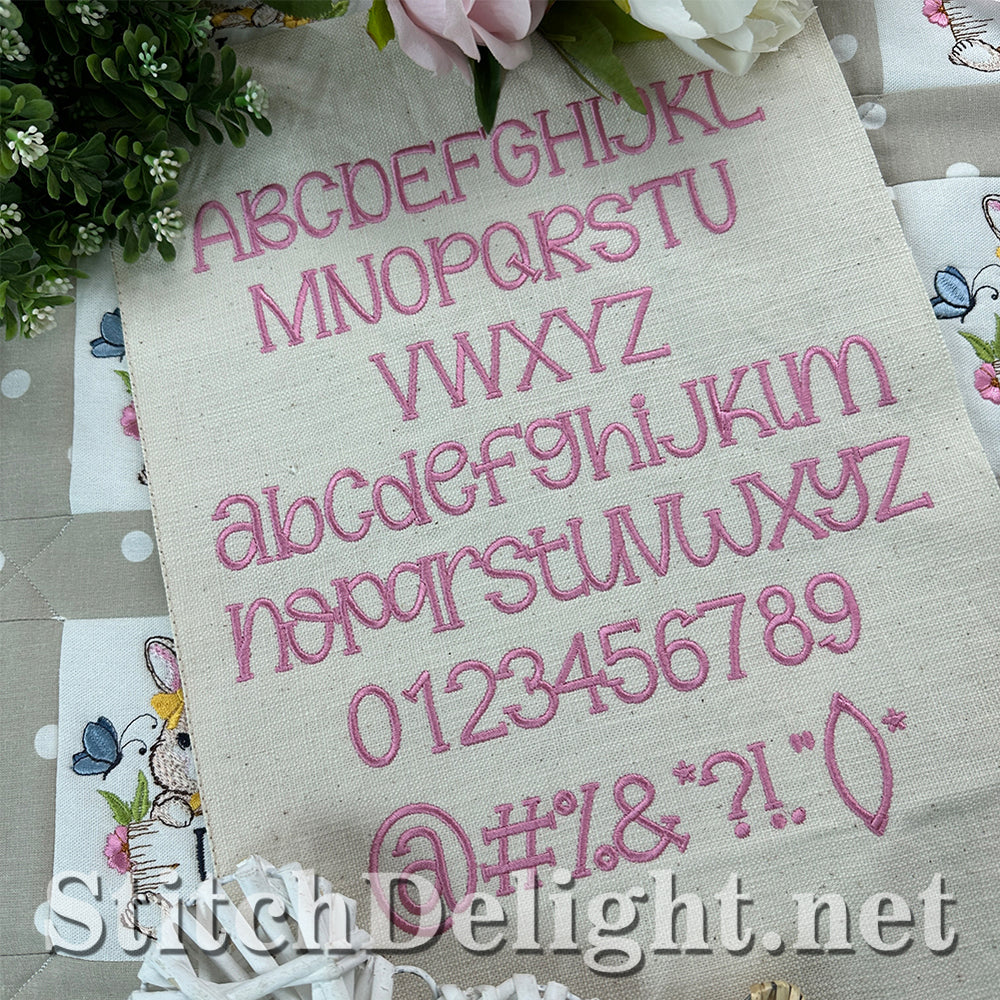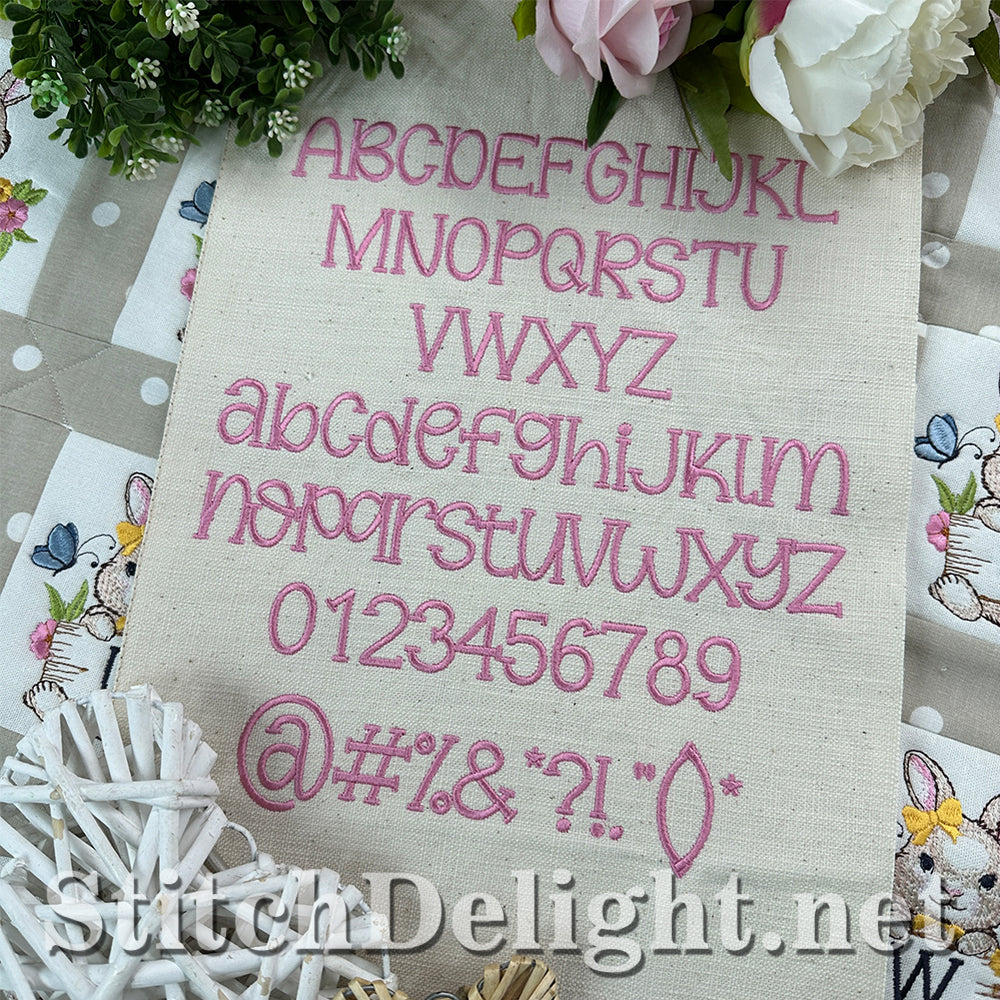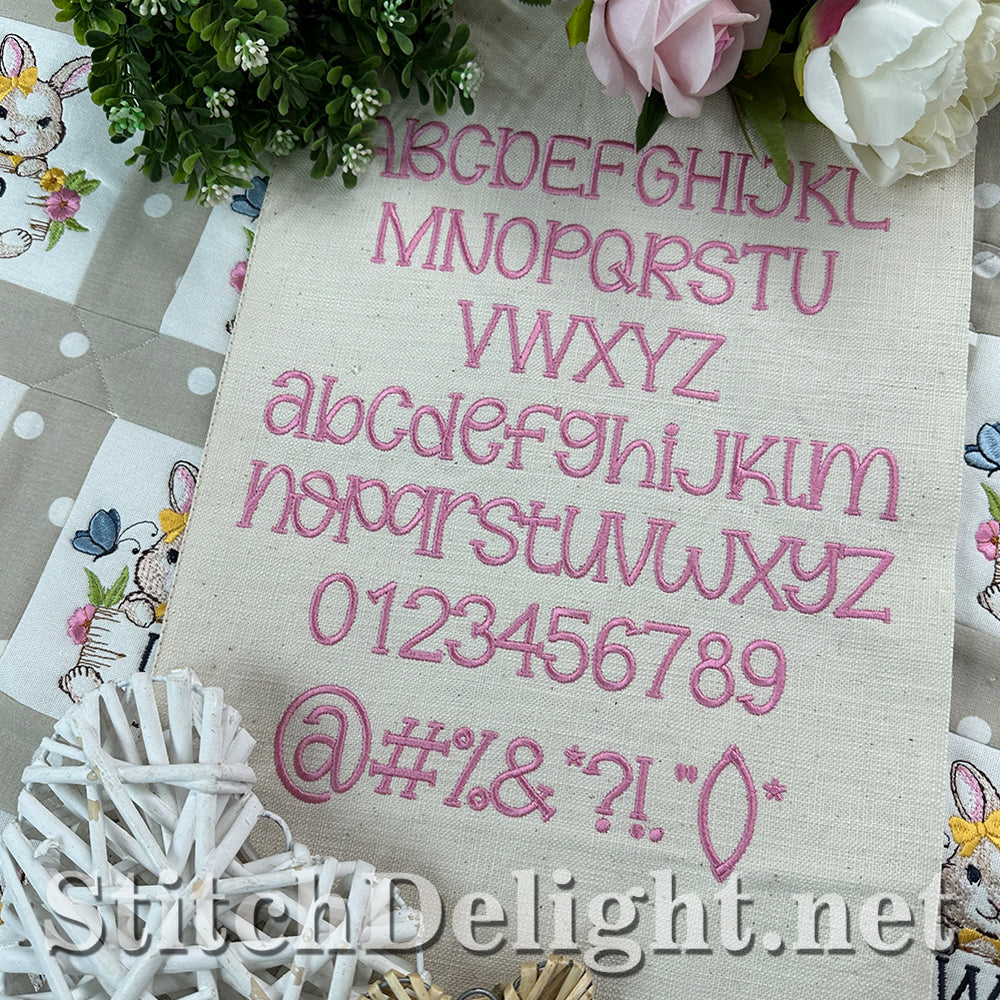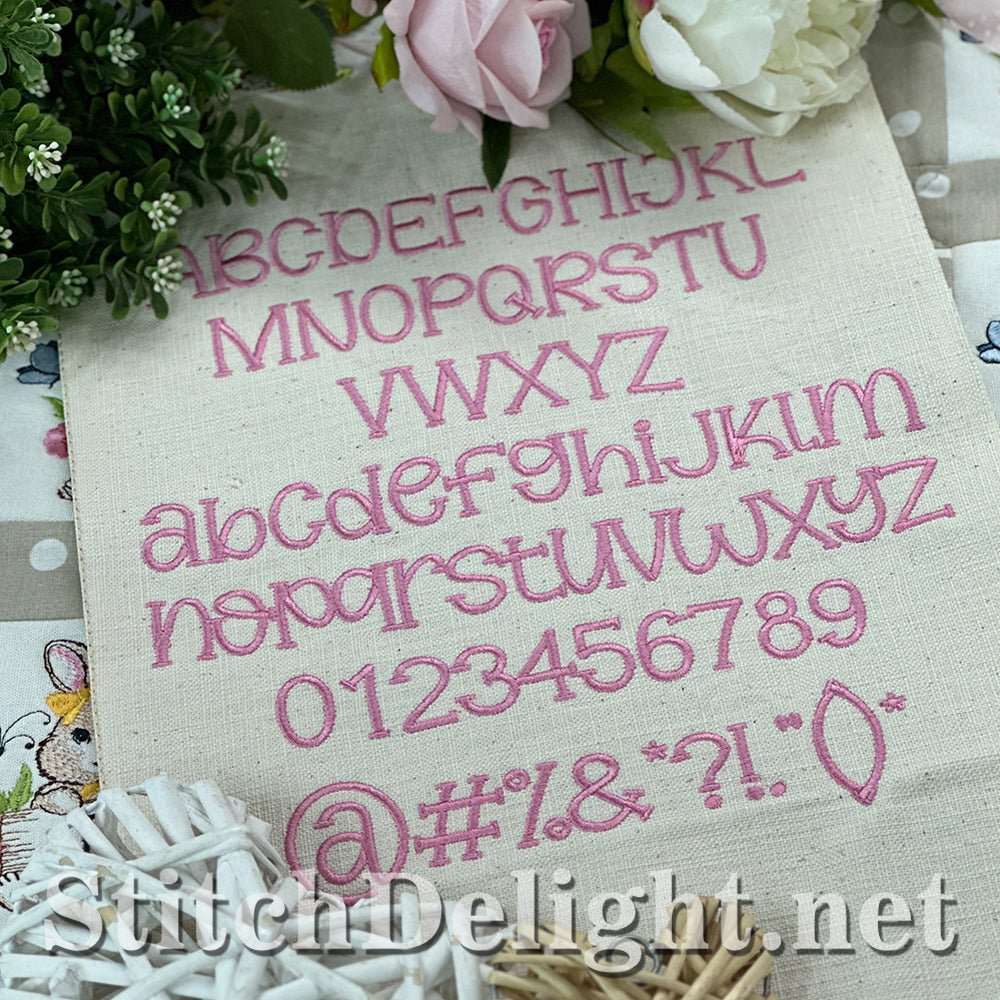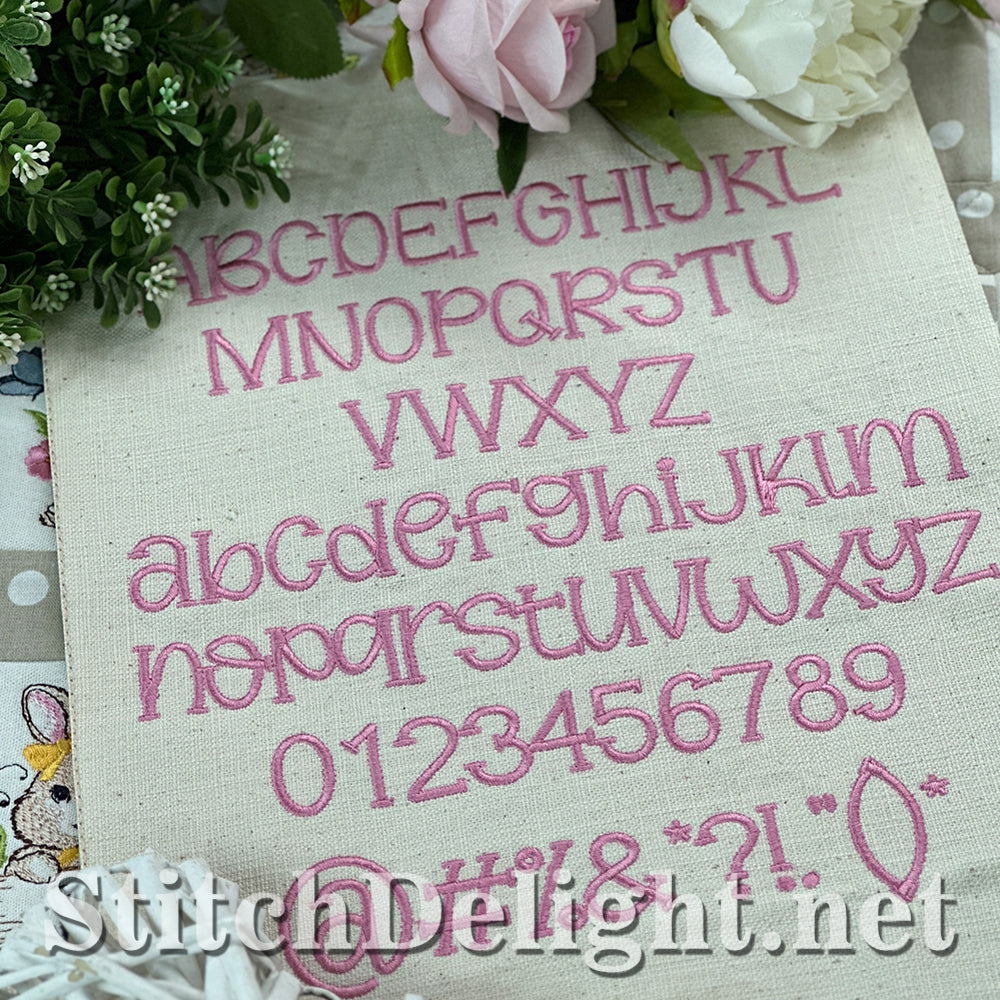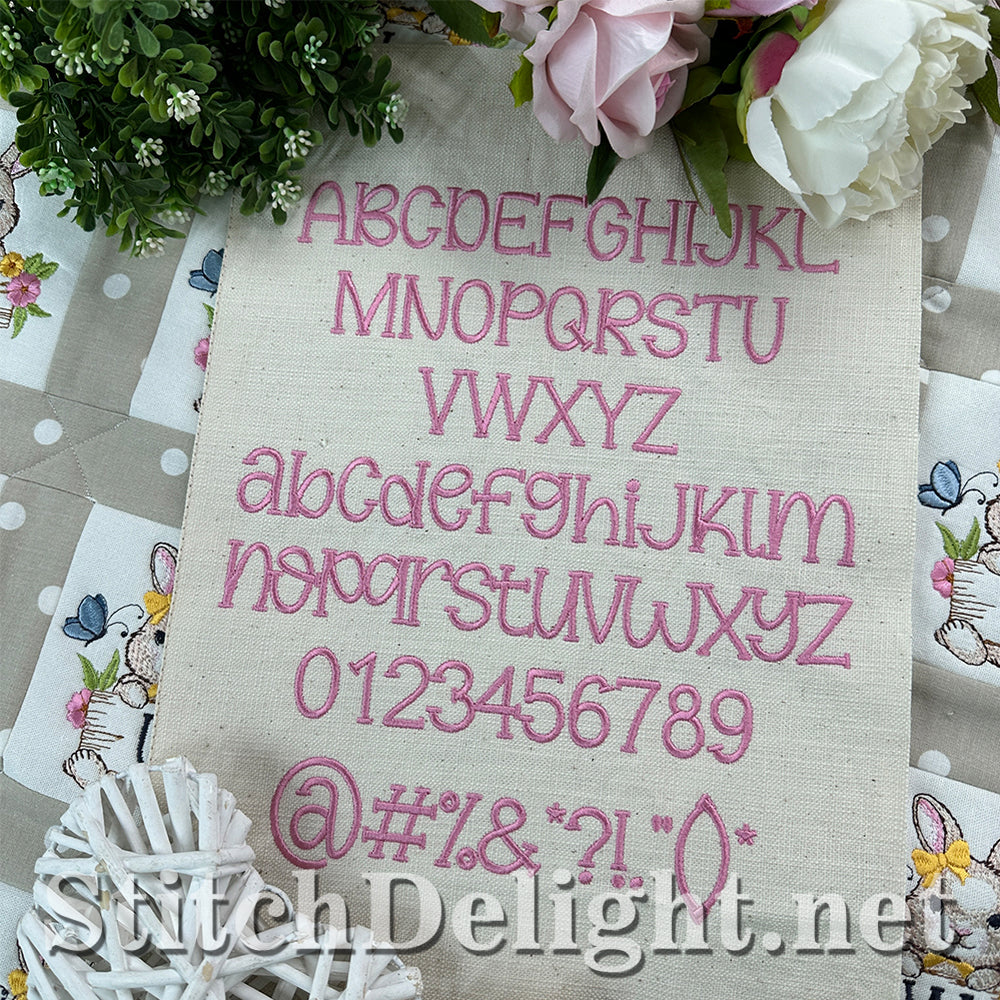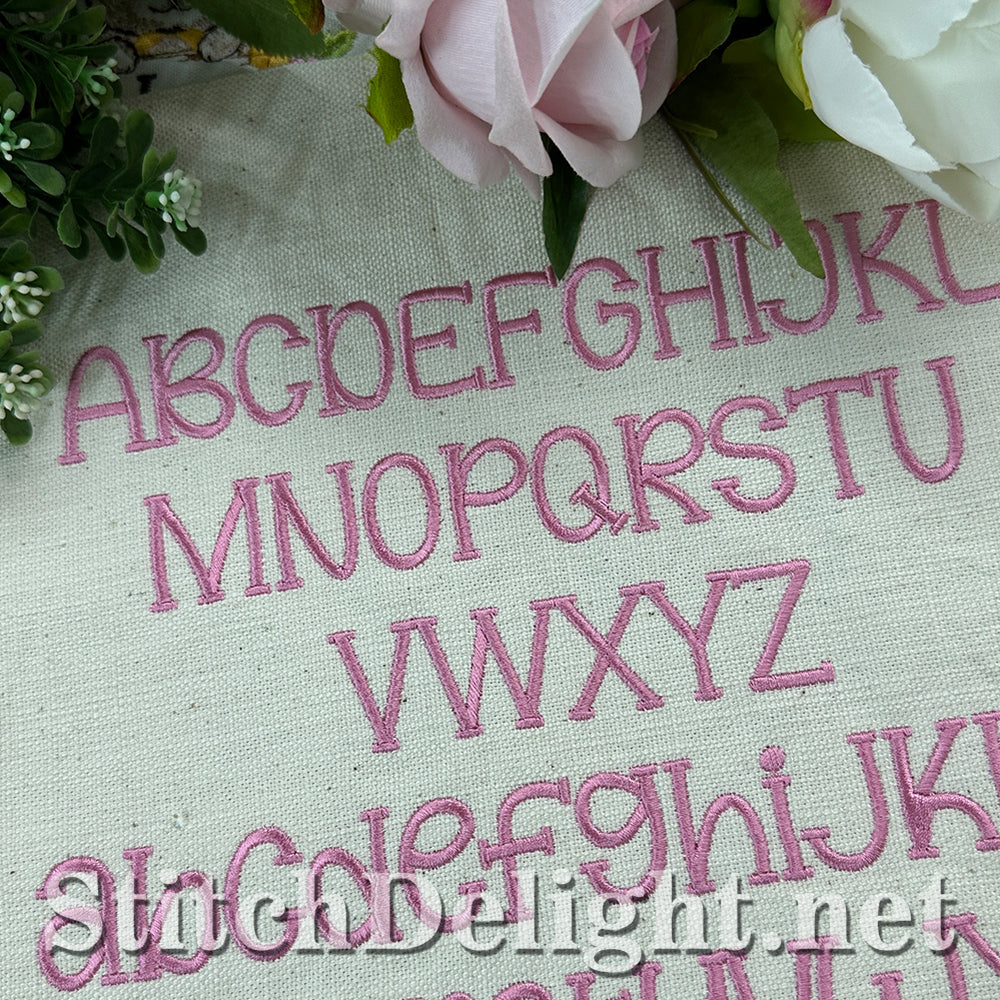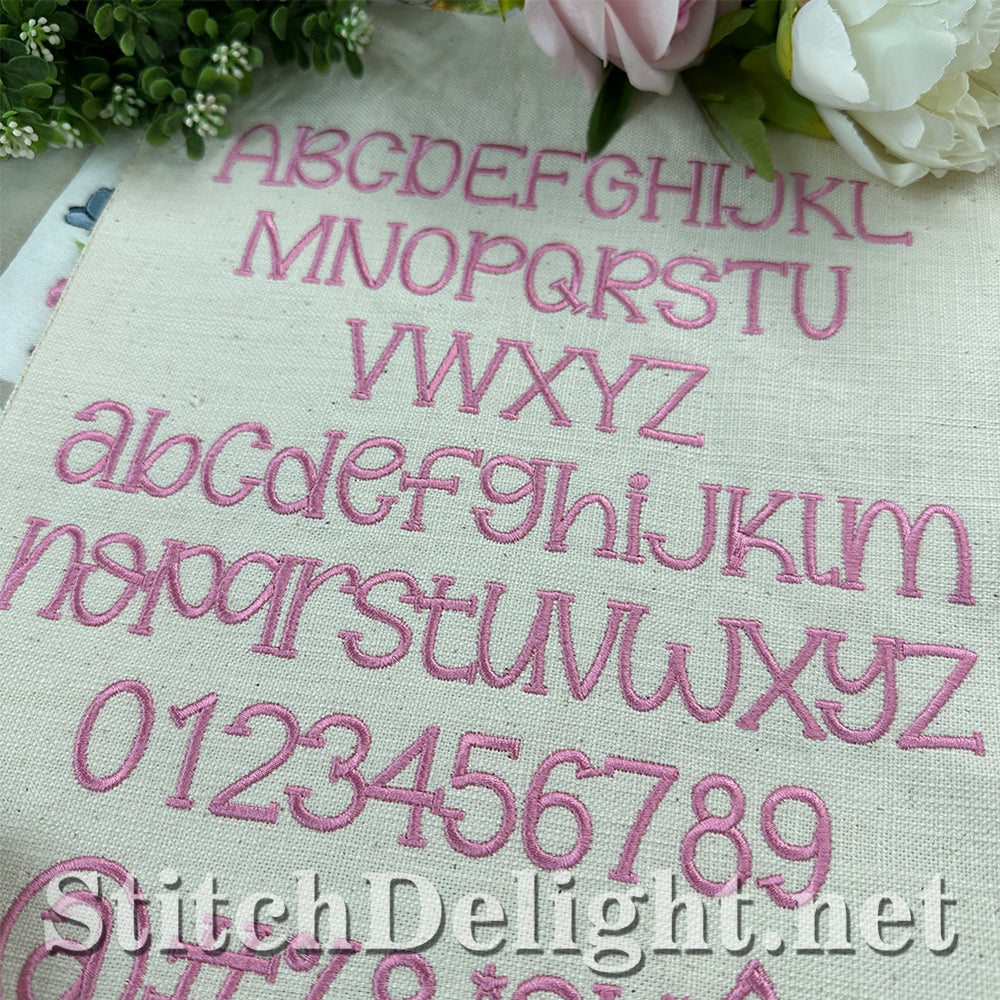
A fun font featuring Uppercase, lowercase, numbers and special characters, the 1" average height makes it perfect for smaller lettering on garments, linen, towels and much more.